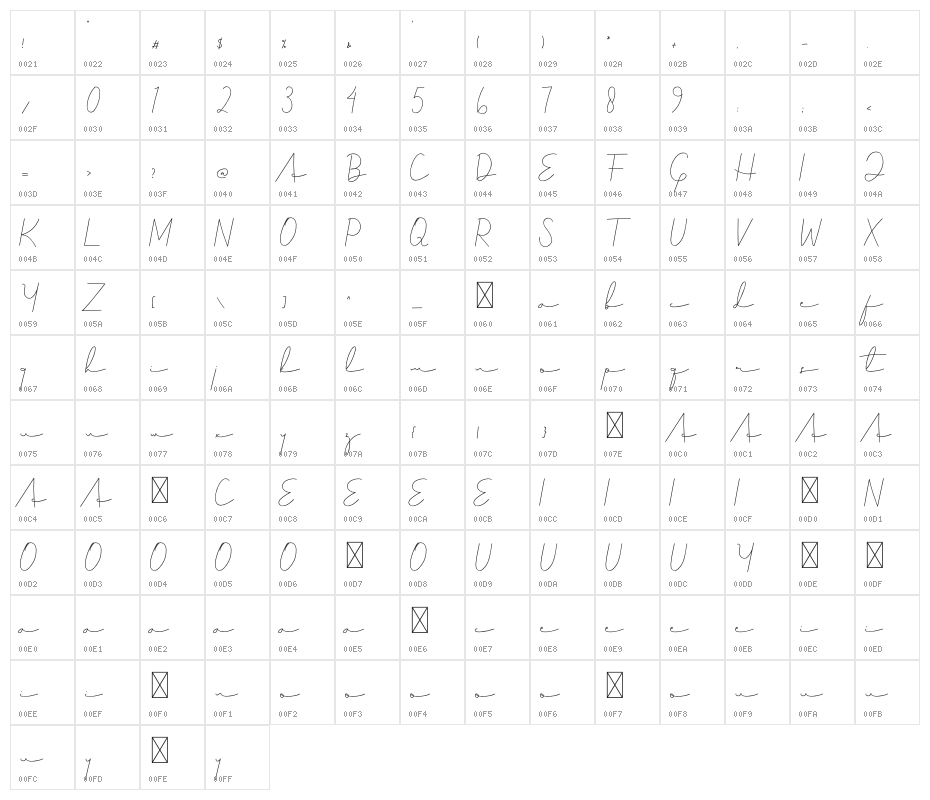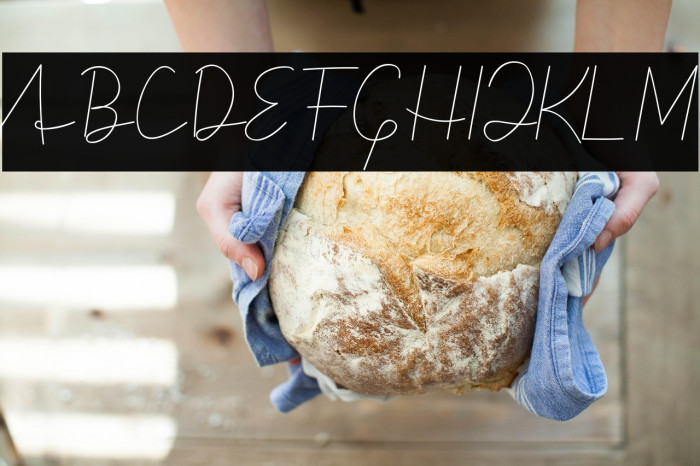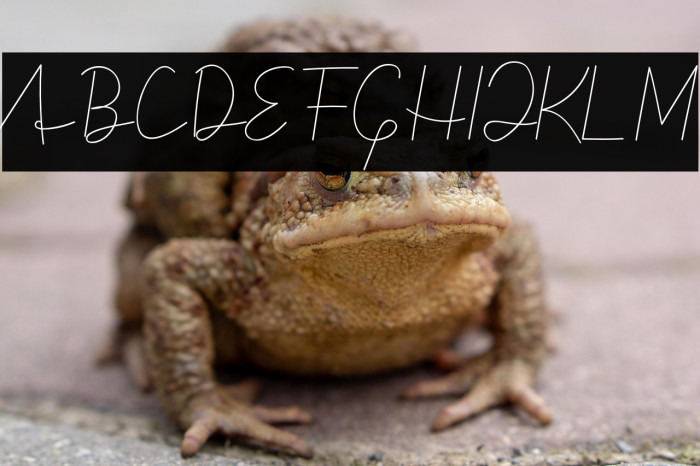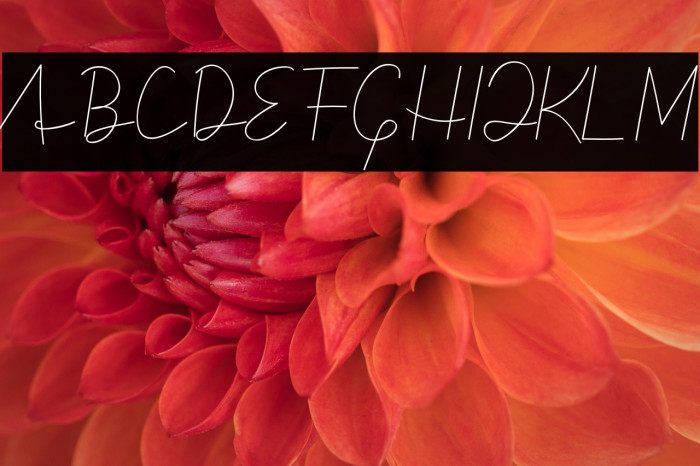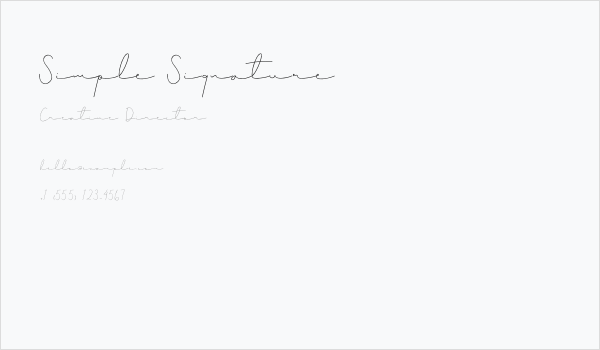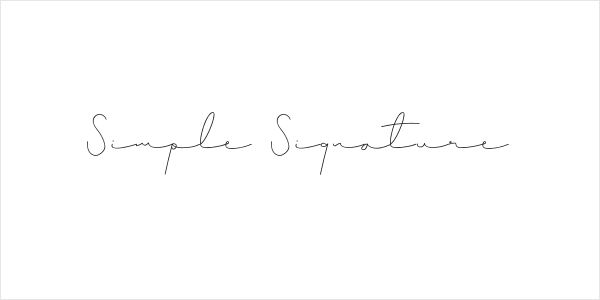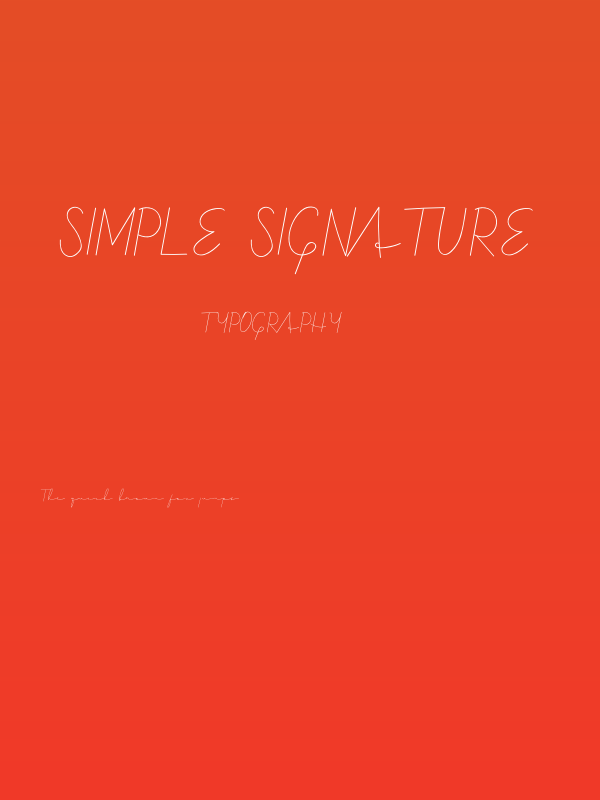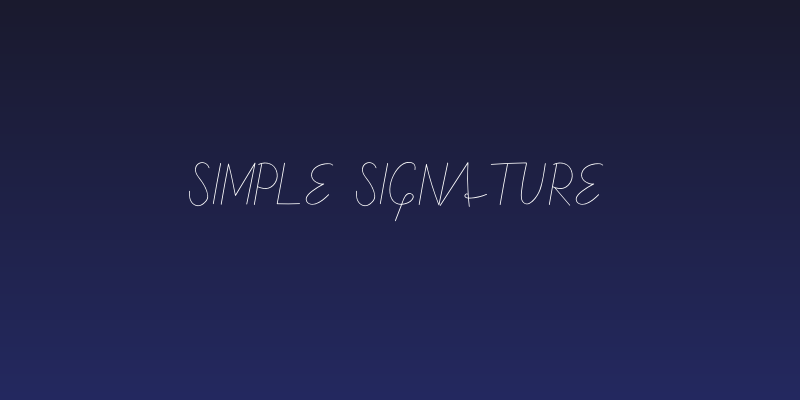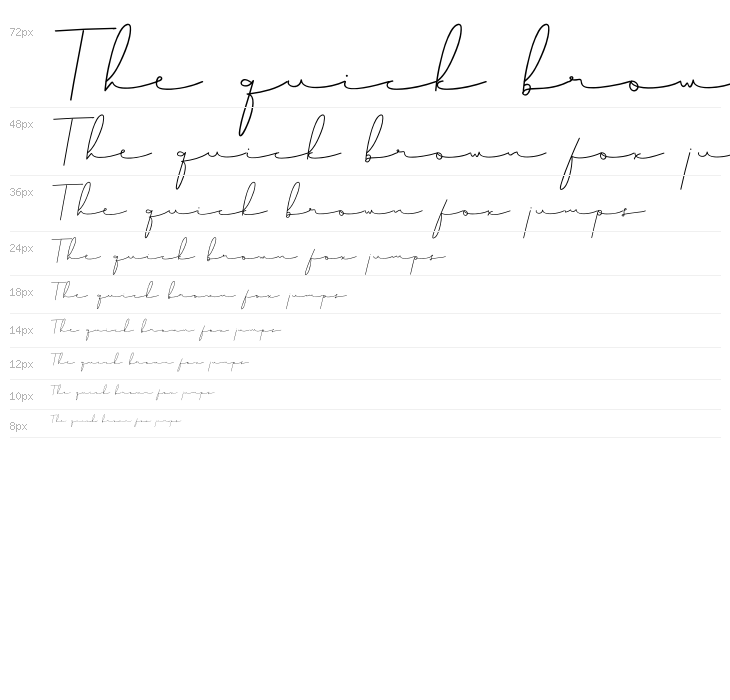
Simple Signature Font
Simple Signature Description
This font embodies a delicate and elegant handwritten style, characterized by its thin, flowing strokes that mimic the fluidity of a personal signature. The uppercase letters maintain a consistent height with subtle variations in width, while the lowercase letters exhibit a more pronounced cursive connection, enhancing the script-like appearance. Numbers and special characters are crafted with the same attention to detail, ensuring a cohesive look across all glyphs. The overall design exudes sophistication and simplicity, making it suitable for projects that require a personal touch.
| Overall Style | Elegant, Personal |
| Use Case | Logos, Invitations, Personal branding |
| Proposed Projects | Ideal for wedding invitations, personal branding, stationery design, and elegant logo creation. |